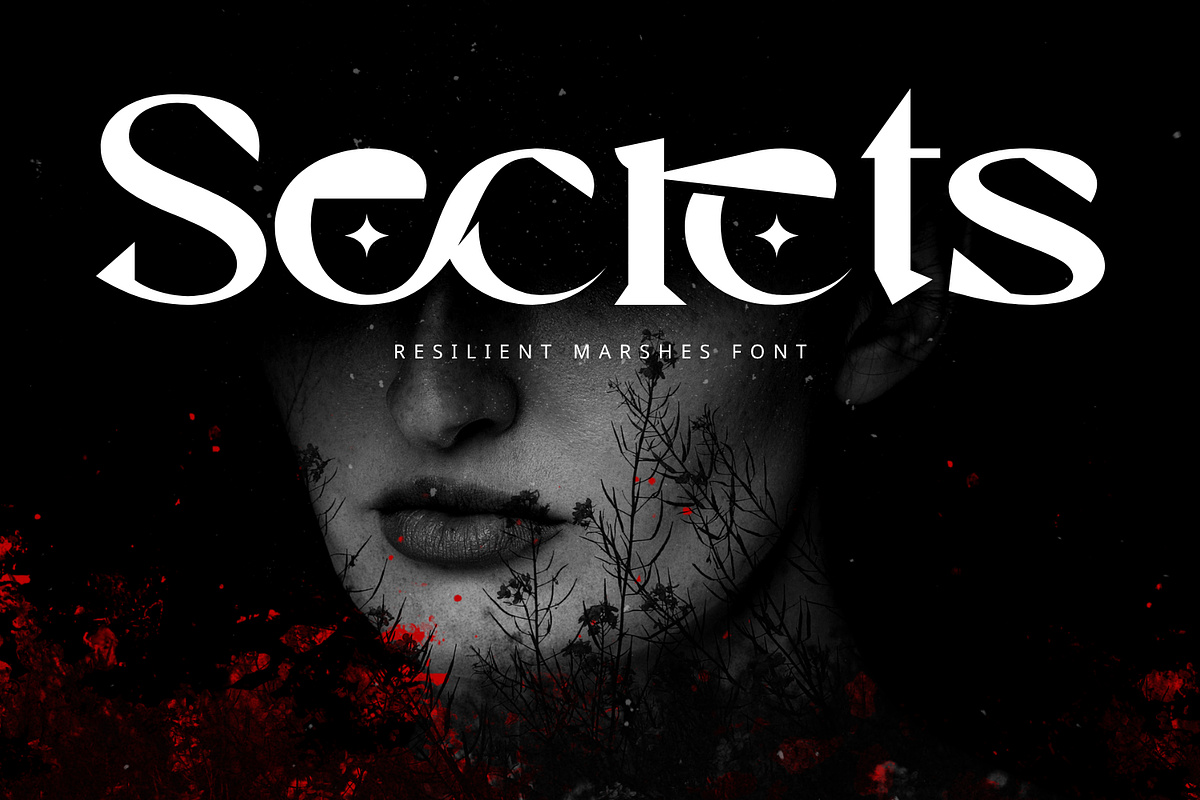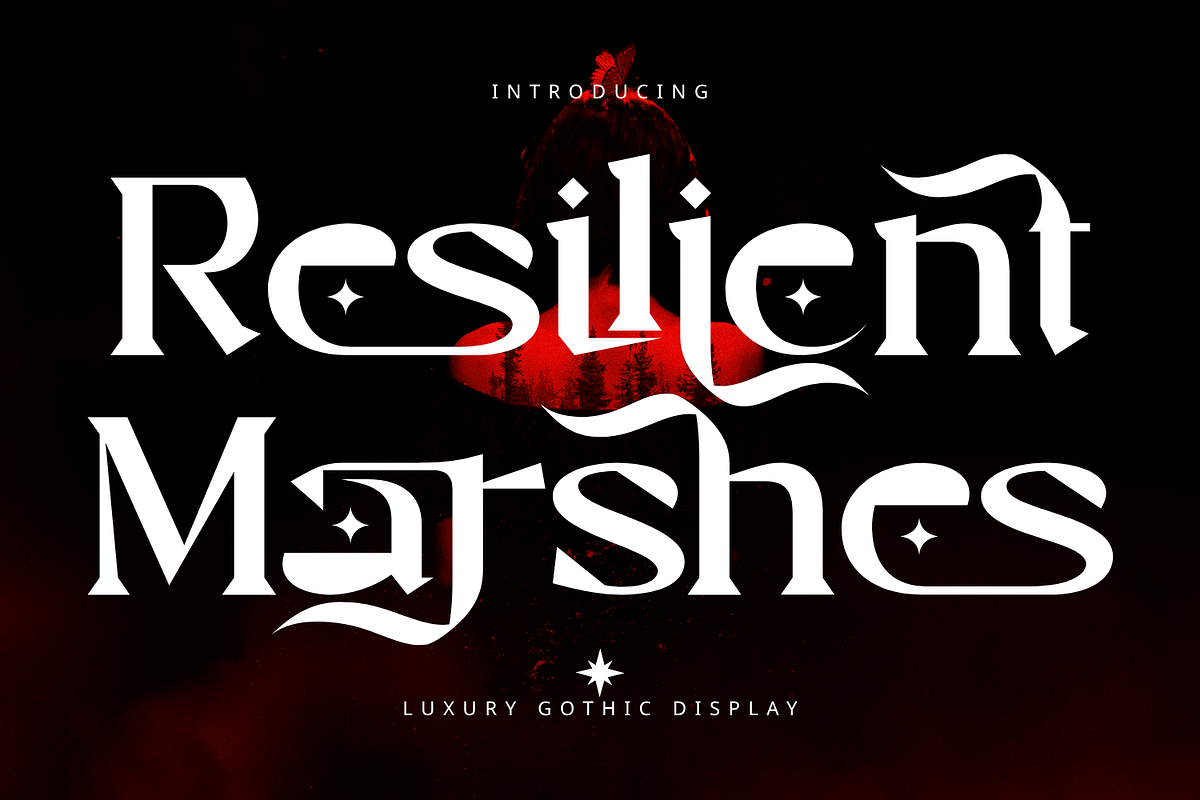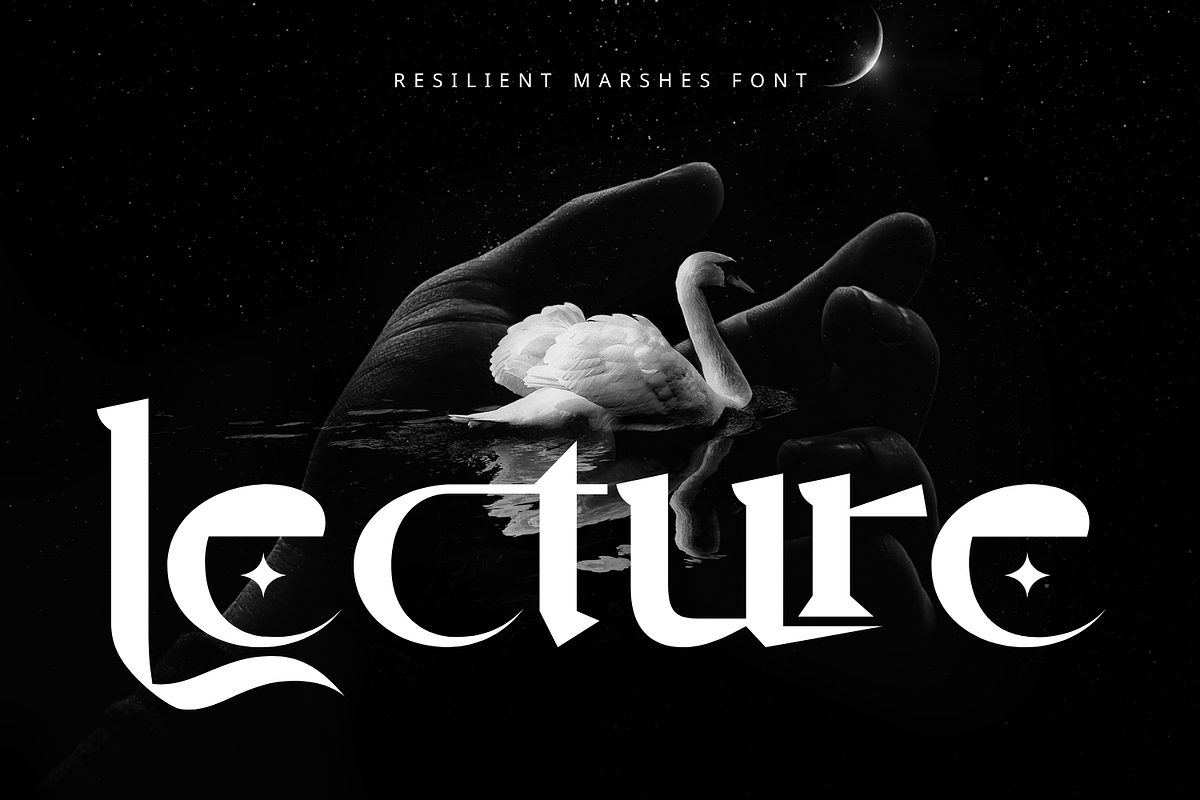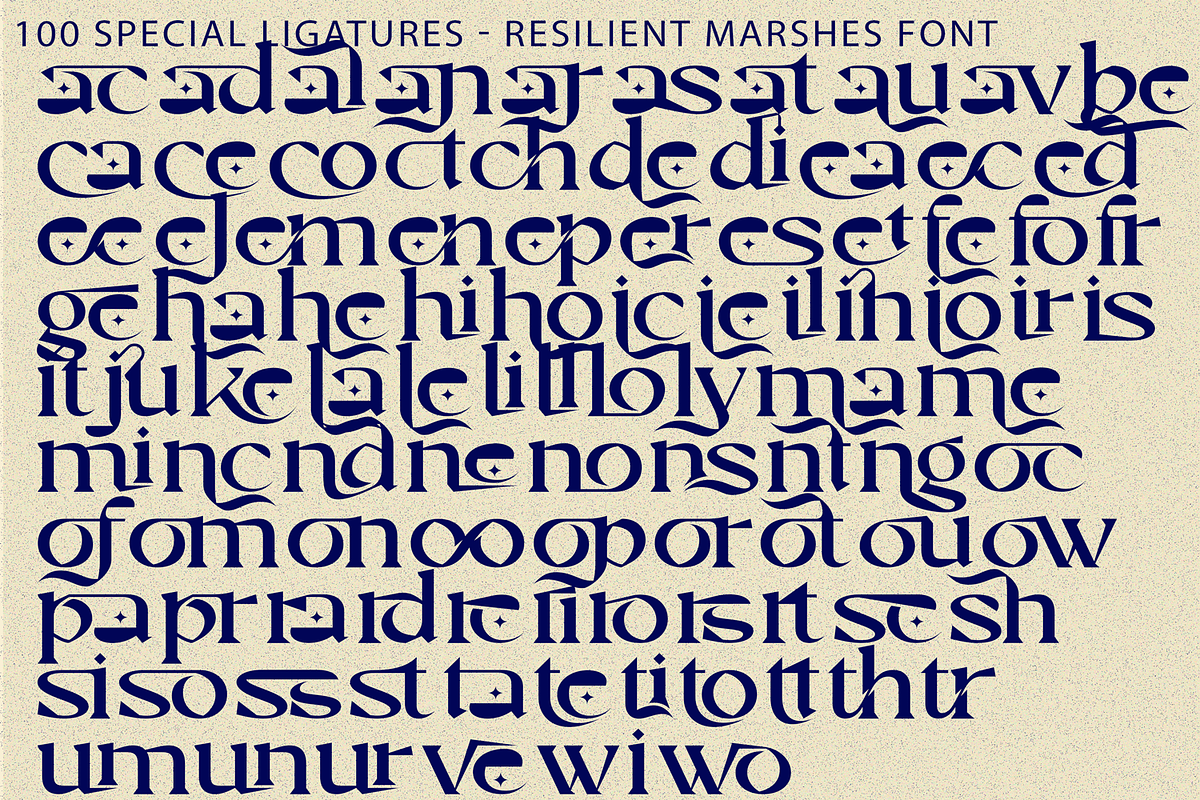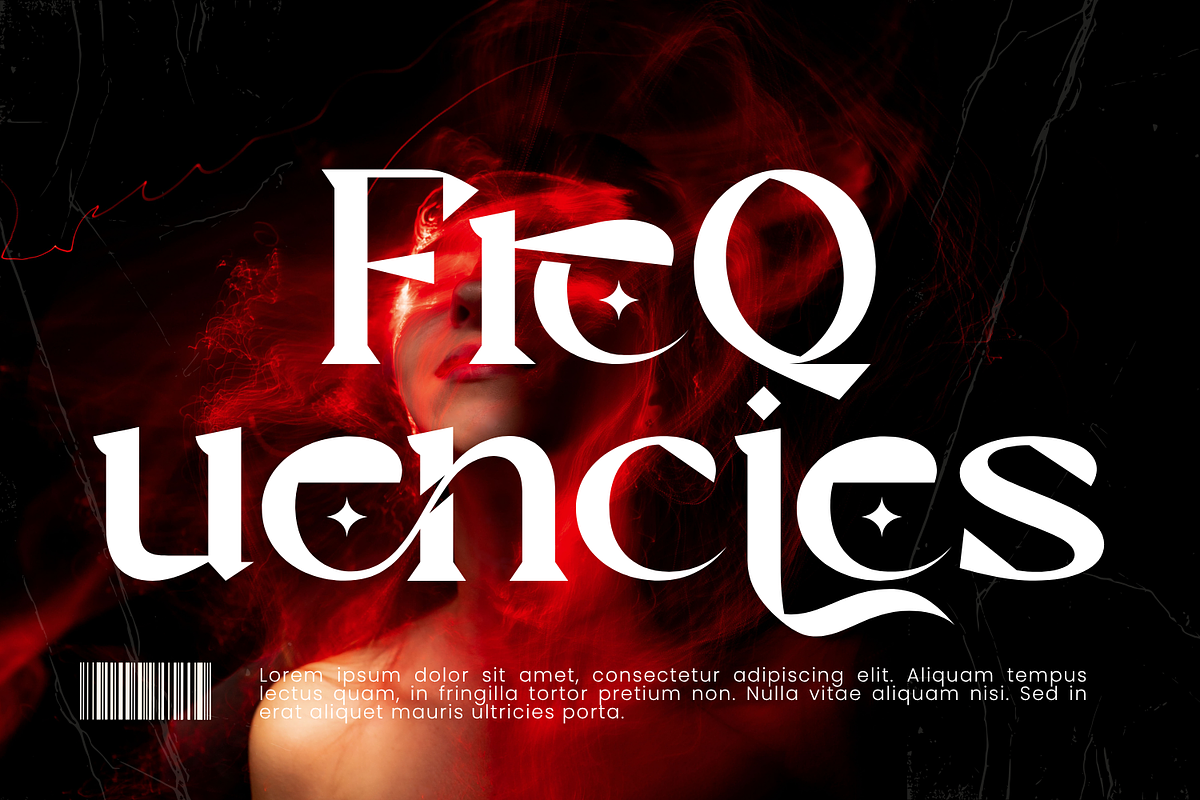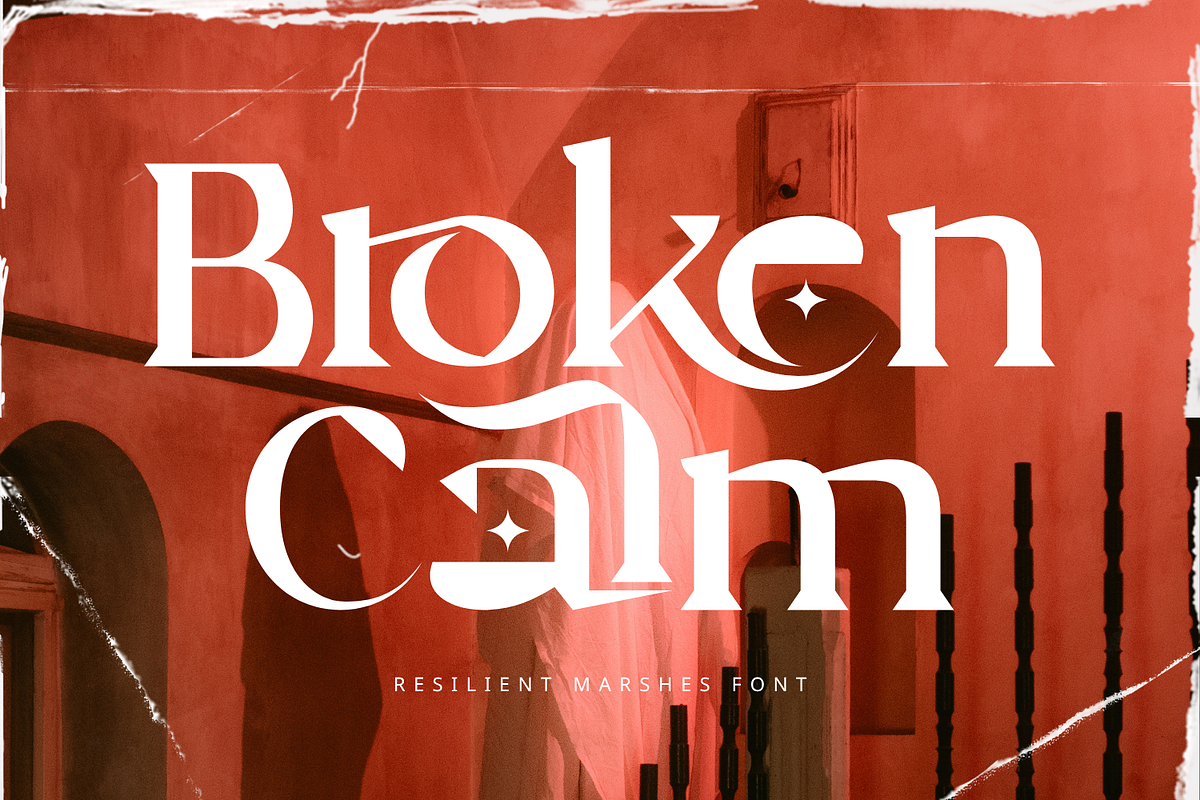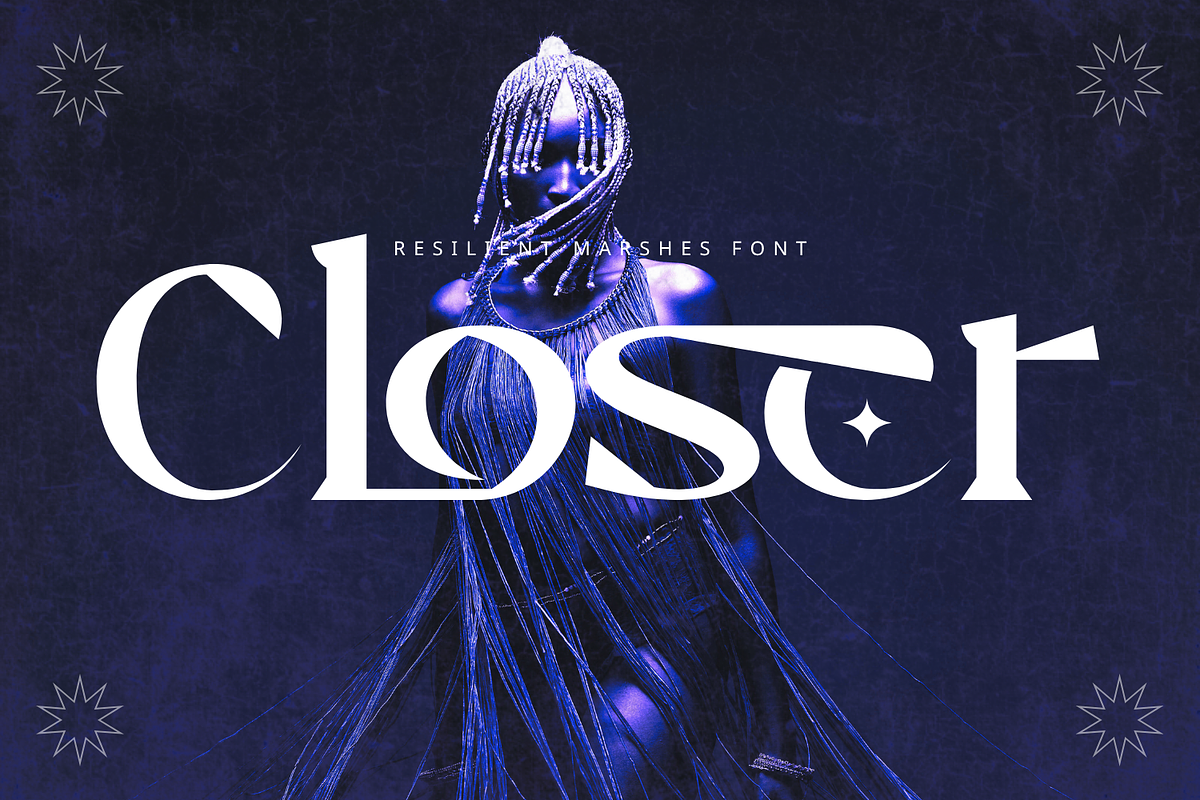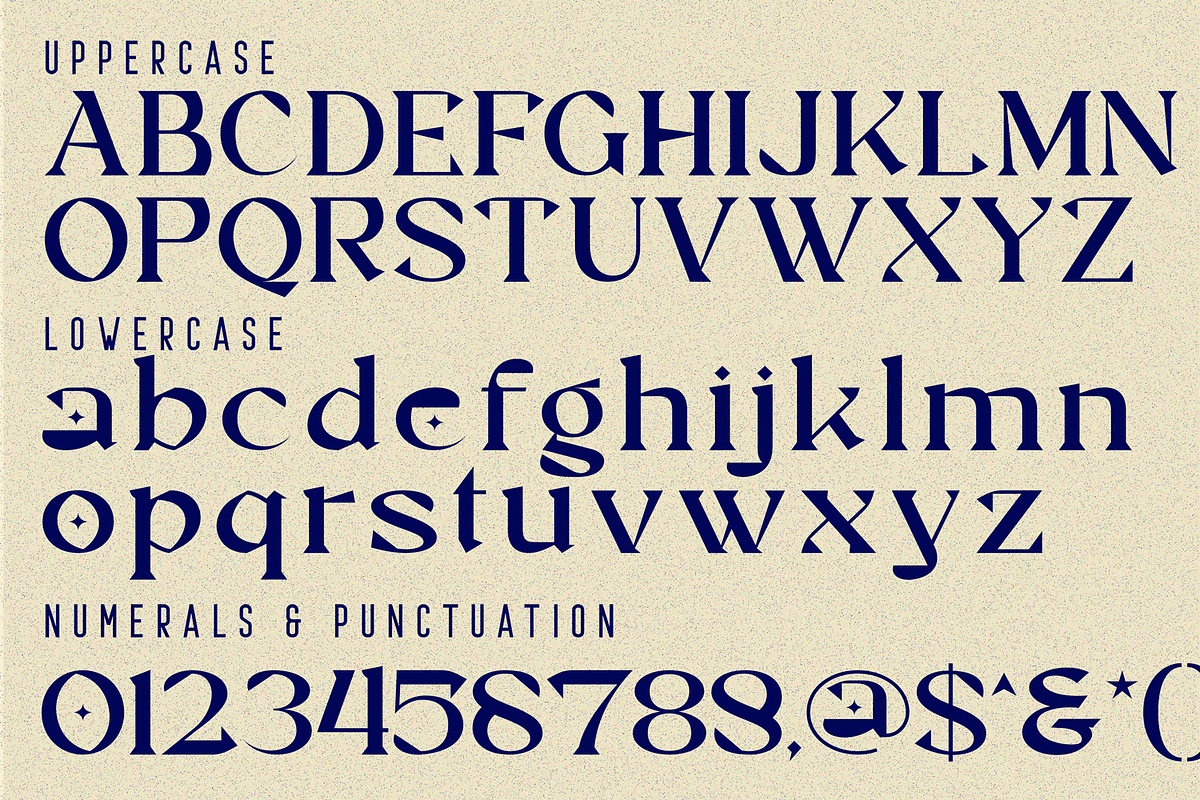
Resilient Marshes - Fantasy Font
Resilient Marshes - Fantasy Font is a decorative gothic serif display font crafted to bring elegance, mystery, and artistic character into your designs. Featuring beautifully sculpted letterforms, high-contrast strokes, graceful curves, and unique ornamental details, this typeface creates a captivating visual presence that feels both timeless and imaginative. The decorative star accents and flowing swashes add a magical touch, while the strong serif structure ensures excellent readability and visual balance.
Designed for projects that demand sophistication and personality, Resilient Marshes is perfect for fantasy book covers, gaming titles, luxury branding, gothic-inspired logos, fashion editorials, movie posters, music artwork, premium packaging, event invitations, and creative visual identities. Its combination of classic craftsmanship and decorative flair makes it an exceptional choice for designers seeking a font that communicates elegance, mystery, and unforgettable style.
🔤Features:
Uppercase & Lowercase Letters
Around 100 Special Ligatures & Alternates
Accented Characters for multilingual support
🔤About 100 ligatures combined with Stylistic Alternates Font:
ac ad al an ar as at au av be ca ce ch co ct de di ea ec ed ee el em en ep er es et fe fo fr ge ha he hi ho ie ic il in io ir is it ju ke la le li ll lo ly ma me mi nc nd ne ng no nt ns oc of om on oo op or ot ou ow pa pr ra rd re ri ro rs rt se sh si so ss st ta te th ti to tr tt um un ur ve wi wo